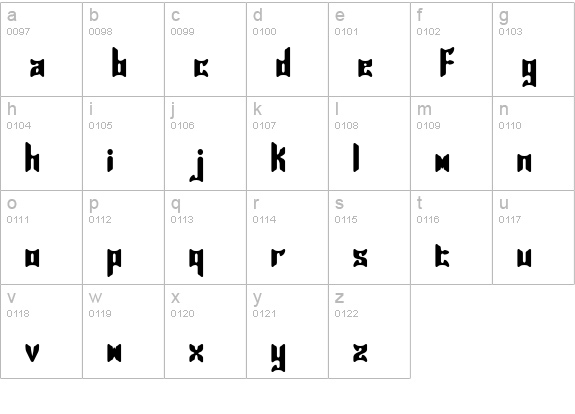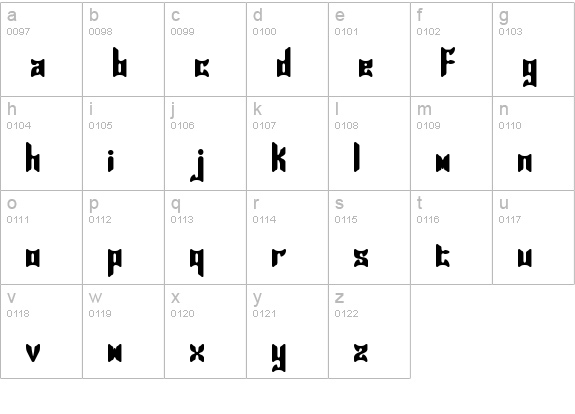
Jasper Solid BRK Font Details
Jasper Solid BRK font is a modern and versatile typeface that exudes an air of sophistication and professionalism. Its solid and bold design makes it perfect for headlines, logos, and branding materials. With its clean lines and sharp edges, Jasper Solid BRK commands attention and leaves a lasting impression. What sets Jasper Solid BRK font apart is that it is not only stylish and functional, but also free for personal and commercial use. This means that you can elevate your design projects without worrying about breaking the bank. You can download Jasper Solid BRK font for free at FontsMarket.com, where you will find a wide range of high-quality fonts to suit your creative needs. Don't miss out on this opportunity to enhance your designs with the elegance and sophistication of Jasper Solid BRK font.